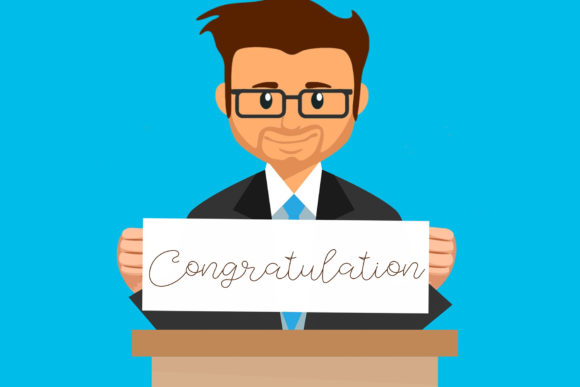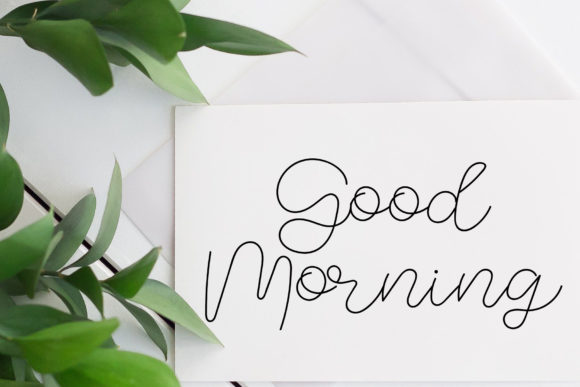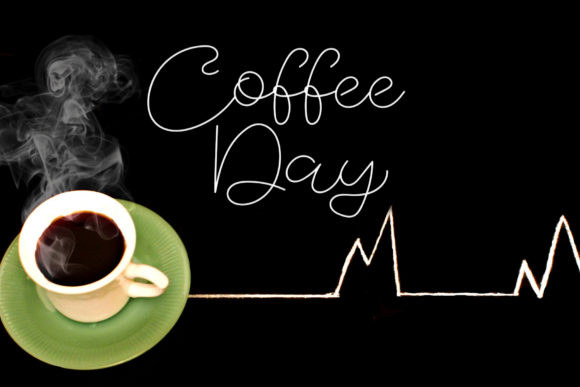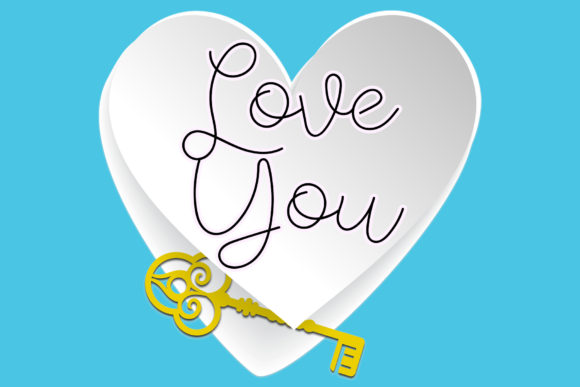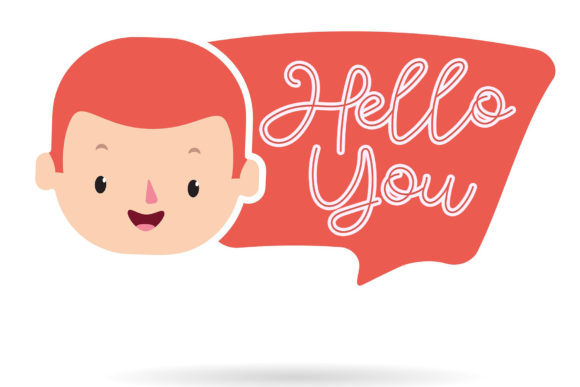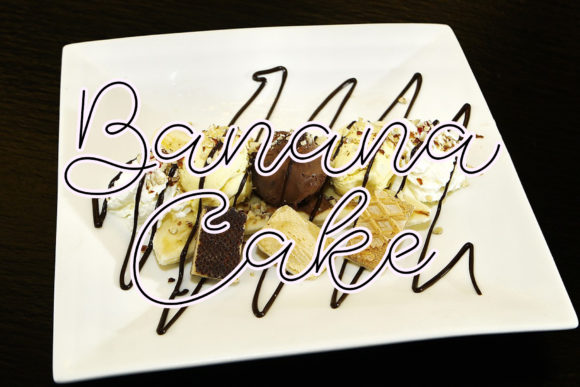
Frambozen Font: The Delicate and Refined Handwritten Font for Your Design Needs
Are you a designer or crafter looking for a font that exudes elegance and sophistication? Look no further than Frambozen Font, a delicate and refined handwritten font that is sure to elevate your designs to the next level. With its clean, thin, and smooth vibe, Frambozen Font is the perfect addition to any project that requires a touch of refinement and poise.
What is Frambozen Font?
Frambozen Font is a beautiful handwritten font that is characterized by its delicate and refined strokes. The font has a clean and thin appearance, making it perfect for designs that require a subtle yet elegant touch. The smooth curves and lines of Frambozen Font give it a sophisticated feel that is sure to impress.
Features of Frambozen Font
Frambozen Font has several features that make it a standout font for designers and crafters. Some of its key features include:
- Delicate and refined strokes: Frambozen Font has a delicate and refined appearance that makes it perfect for designs that require a touch of elegance.
- Clean and thin appearance: The font has a clean and thin appearance that makes it easy to read and perfect for designs that require a subtle touch.
- Smooth curves and lines: The smooth curves and lines of Frambozen Font give it a sophisticated feel that is sure to impress.
- Handwritten appearance: Frambozen Font has a handwritten appearance that gives it a personal and unique touch.
Uses of Frambozen Font
Frambozen Font is a versatile font that can be used for a variety of design projects. Some of the uses of Frambozen Font include:
- Wedding designs: Frambozen Font is perfect for wedding designs, such as wedding invitations, wedding cards, and wedding stationery.
- Branding and packaging: The font can be used for branding and packaging designs that require a touch of elegance and sophistication.
- Stationery and paper crafts: Frambozen Font is perfect for stationery and paper crafts, such as greeting cards, journals, and planners.
- Digital designs: The font can be used for digital designs, such as social media graphics, blog headers, and website designs.
Why Choose Frambozen Font?
There are several reasons why you should choose Frambozen Font for your design needs. Some of the reasons include:
- Unique and elegant appearance: Frambozen Font has a unique and elegant appearance that sets it apart from other fonts.
- Versatile: The font is versatile and can be used for a variety of design projects.
- Easy to read: Frambozen Font is easy to read, making it perfect for designs that require a clear and concise message.
- High-quality: The font is of high-quality, making it perfect for professional designs.
In conclusion, Frambozen Font is a delicate and refined handwritten font that is perfect for designers and crafters who want to add a touch of elegance and sophistication to their designs. With its clean, thin, and smooth vibe, Frambozen Font is sure to be a hit for any design project. Whether you’re looking for a font for wedding designs, branding and packaging, stationery and paper crafts, or digital designs, Frambozen Font is the perfect choice.